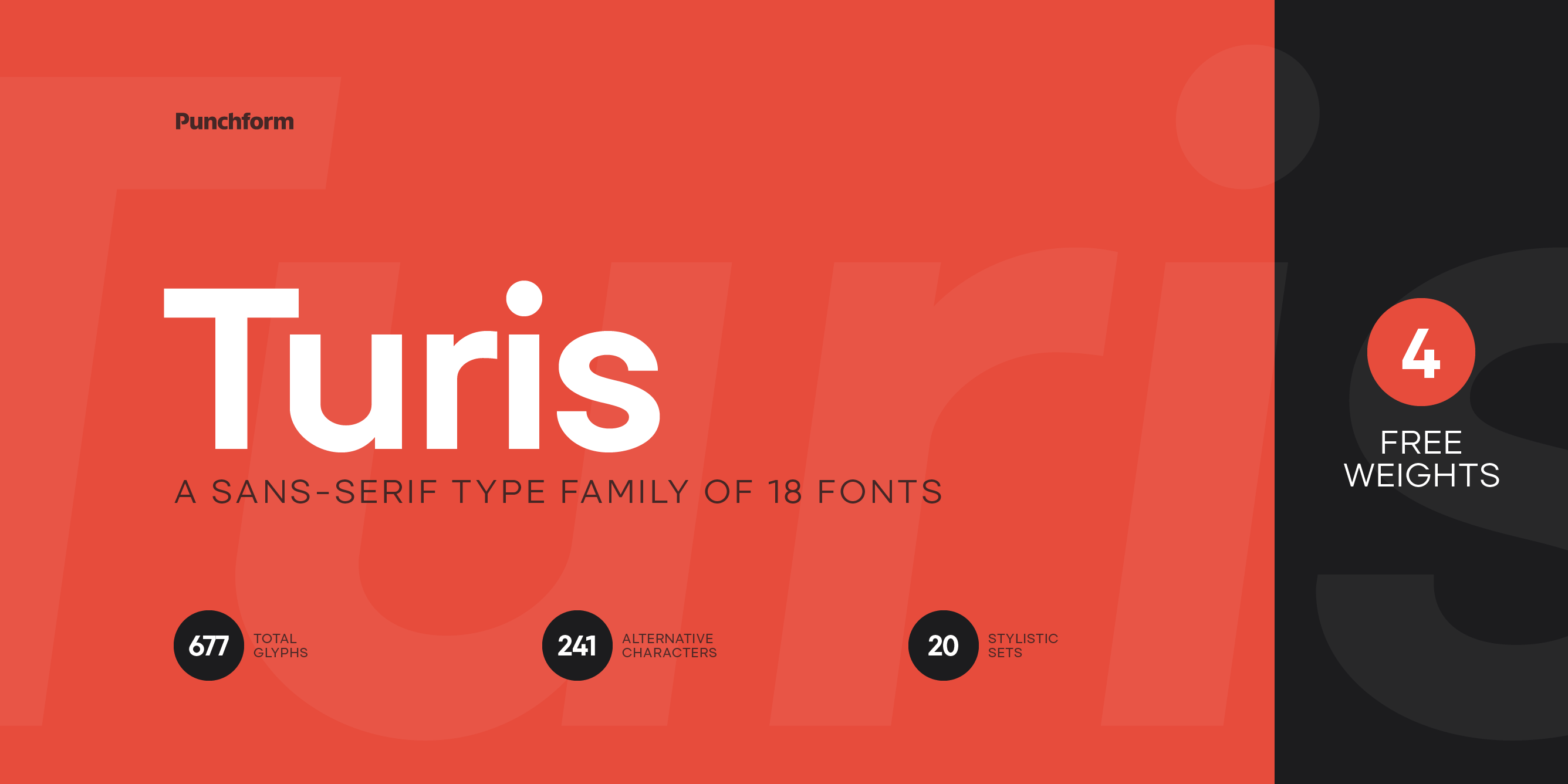
Turis Font is ideal for travel design projects including tourism agencies, vacation resort branding, travel blog headers, destination marketing campaigns, hotel signage, airline promotional materials, adventure tour companies, and wanderlust-inspired lifestyle brands. This adventurous typeface works perfectly for travel guides, tourism boards, vacation rental services, backpacking gear stores, and projects that celebrate exploration, cultural discovery, and the joy of traveling the world.
What makes Turis Font exciting is its adventurous travel character that perfectly captures the essence of global exploration and cultural discovery. The font features friendly letterforms with journey-inspired styling that reflects the excitement and curiosity of world travelers. Its welcoming design elements embody the spirit of cultural exchange and adventure seeking, making it perfect for projects that need to convey wanderlust, discovery, and connection to global destinations. The carefully crafted travel-friendly proportions create an atmosphere of cultural exploration and adventure enthusiasm.
Turis Font comes in multiple family variations including adventure, journey, wanderlust, and expedition styles. Each weight maintains the distinctive travel character while offering different levels of exploration intensity and cultural presence. The font family includes travel alternates, journey ligatures, and destination variations that provide designers with comprehensive options for creating truly adventurous and culturally authentic typographic compositions that celebrate global exploration.